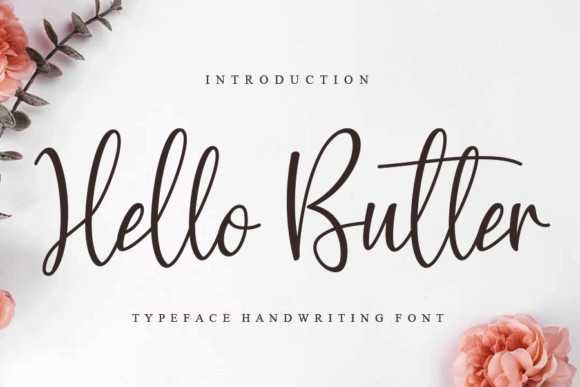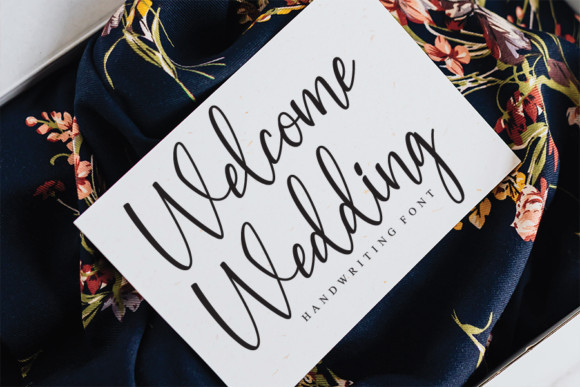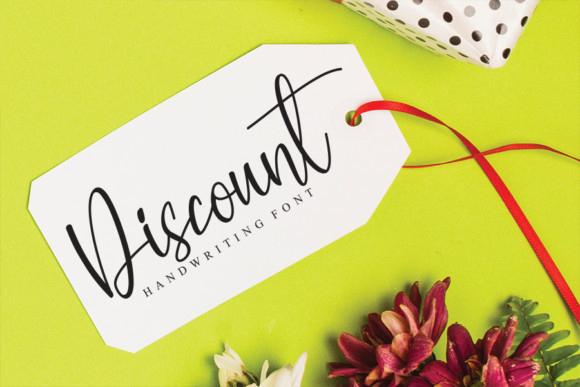
Hello Butter Font
Hello Butter is a handwritten script font, with an elegant and beautiful look. It looks stunning on wedding invitations, thank you cards, quotes, greeting cards, logos, business cards and every other design which needs a handwritten touch.